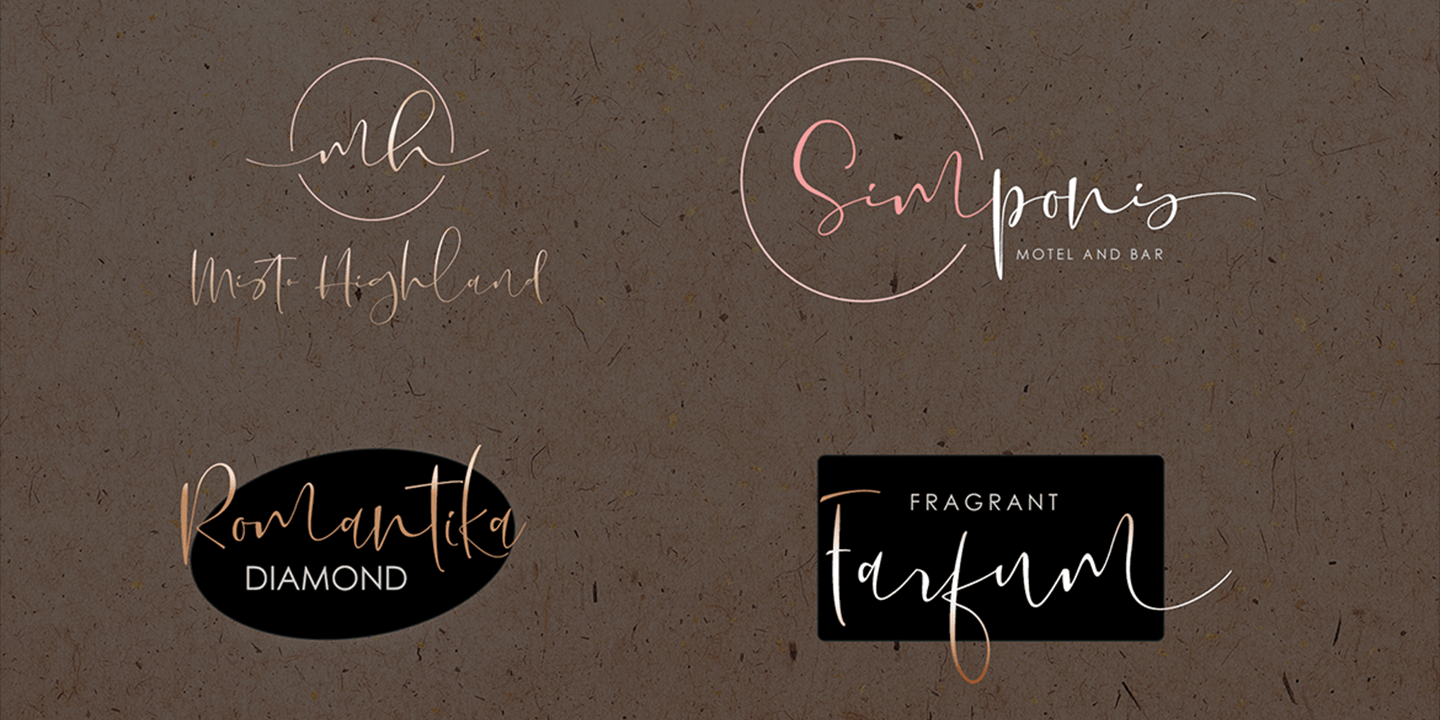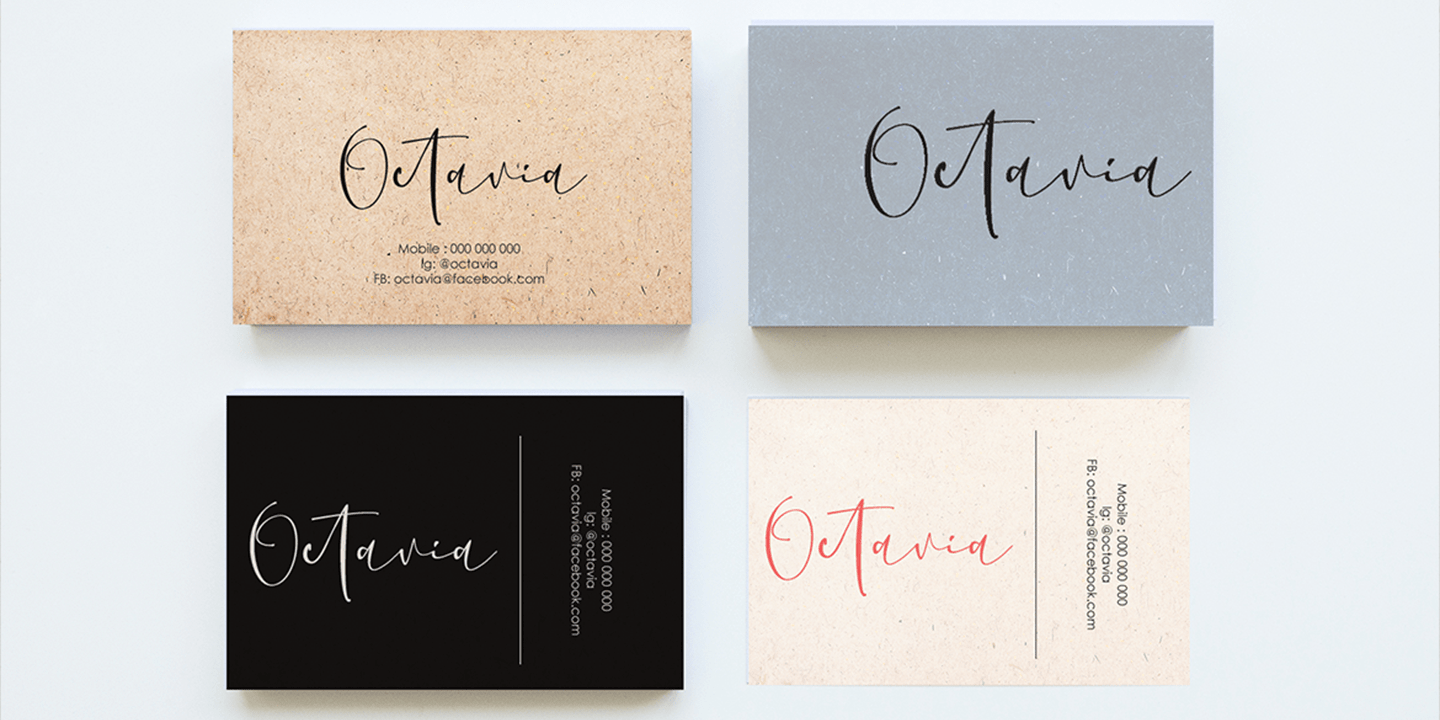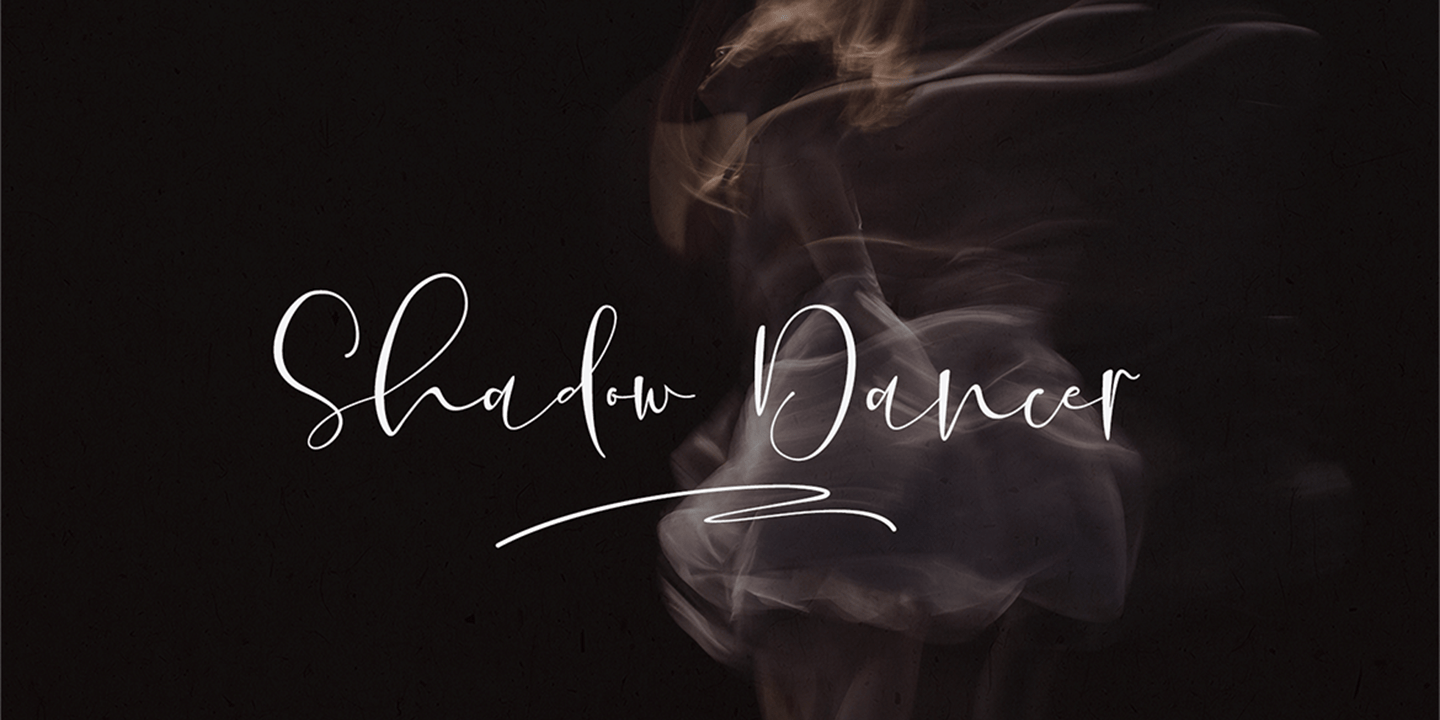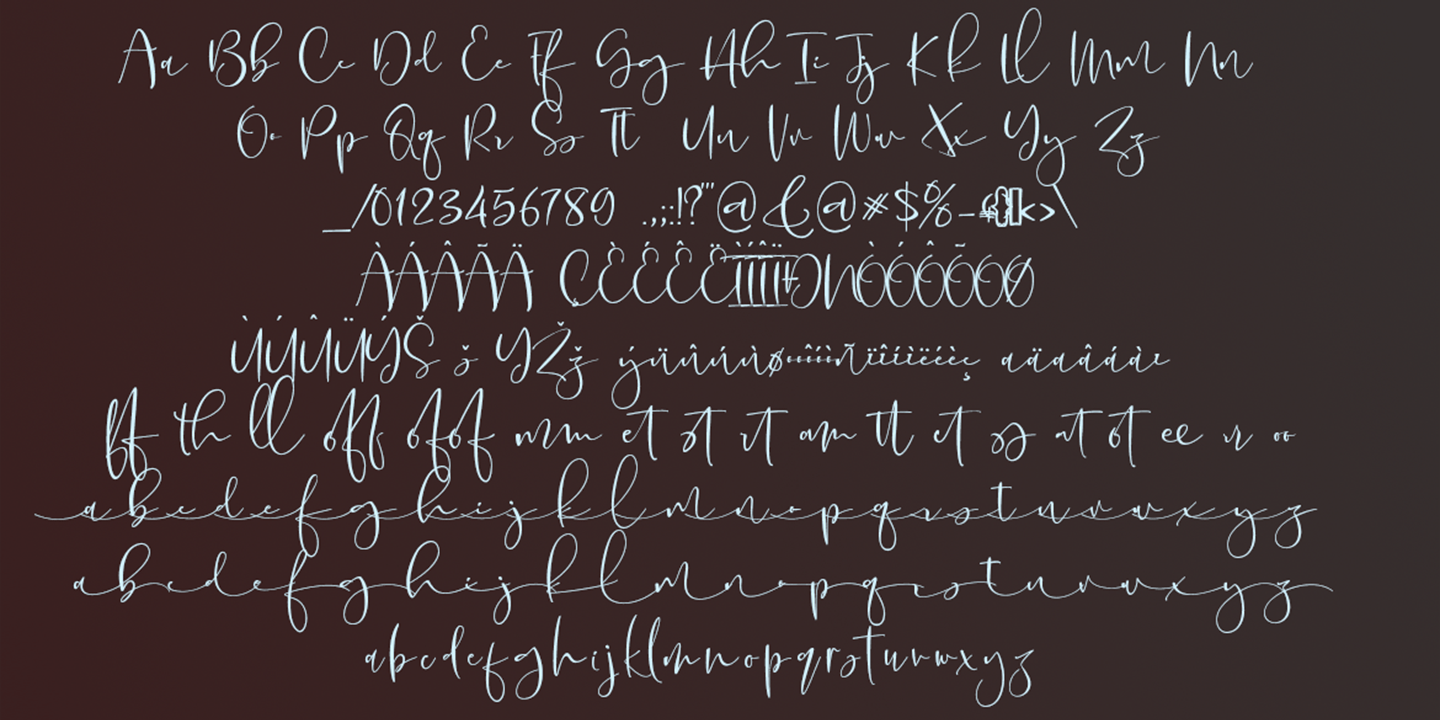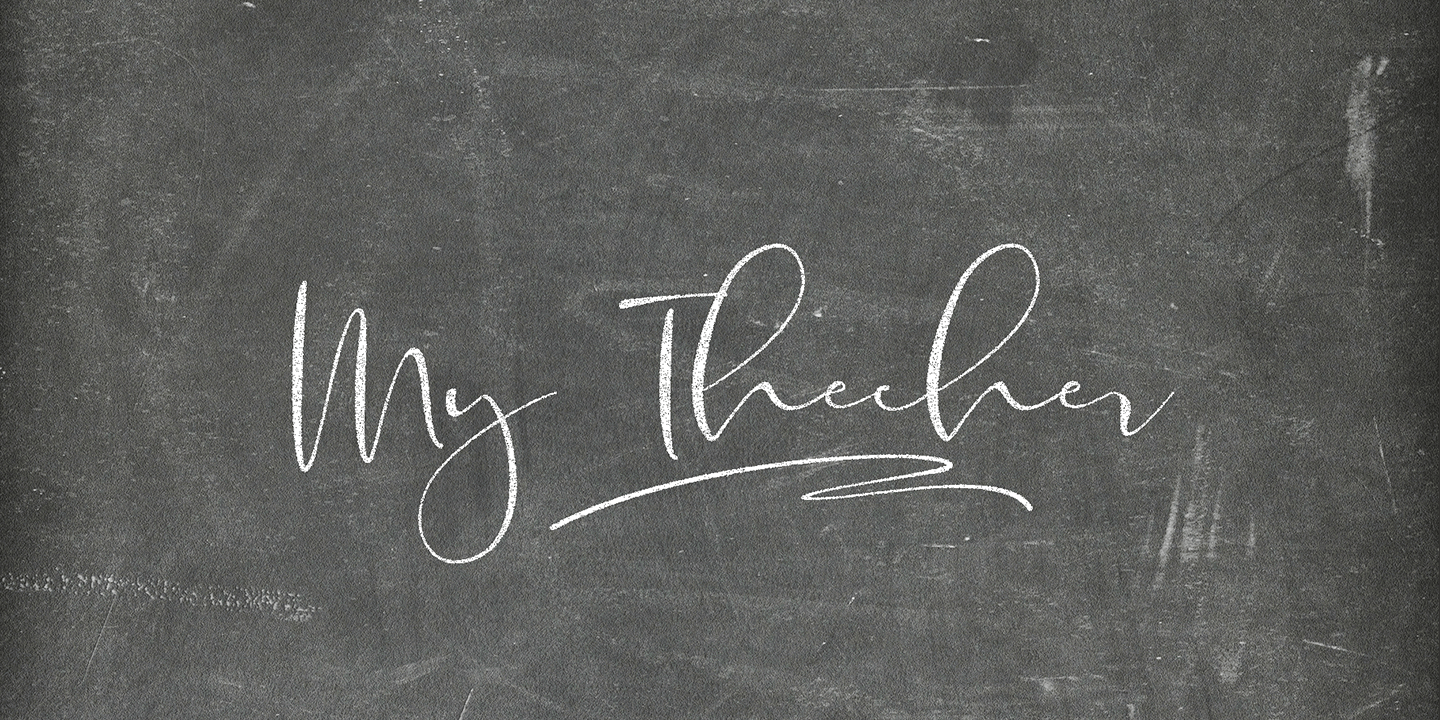
Naturally Elevate
Naturally Elevate a work that is purely handwritten, has its own characteristics with the style of monoline It is perfect for invitations, signatures, blogs, social media, business cards, product brands.
The Features of this fonts is:
- Standard Ligatures
- Stylistic Alternates
- Stylistic Sets